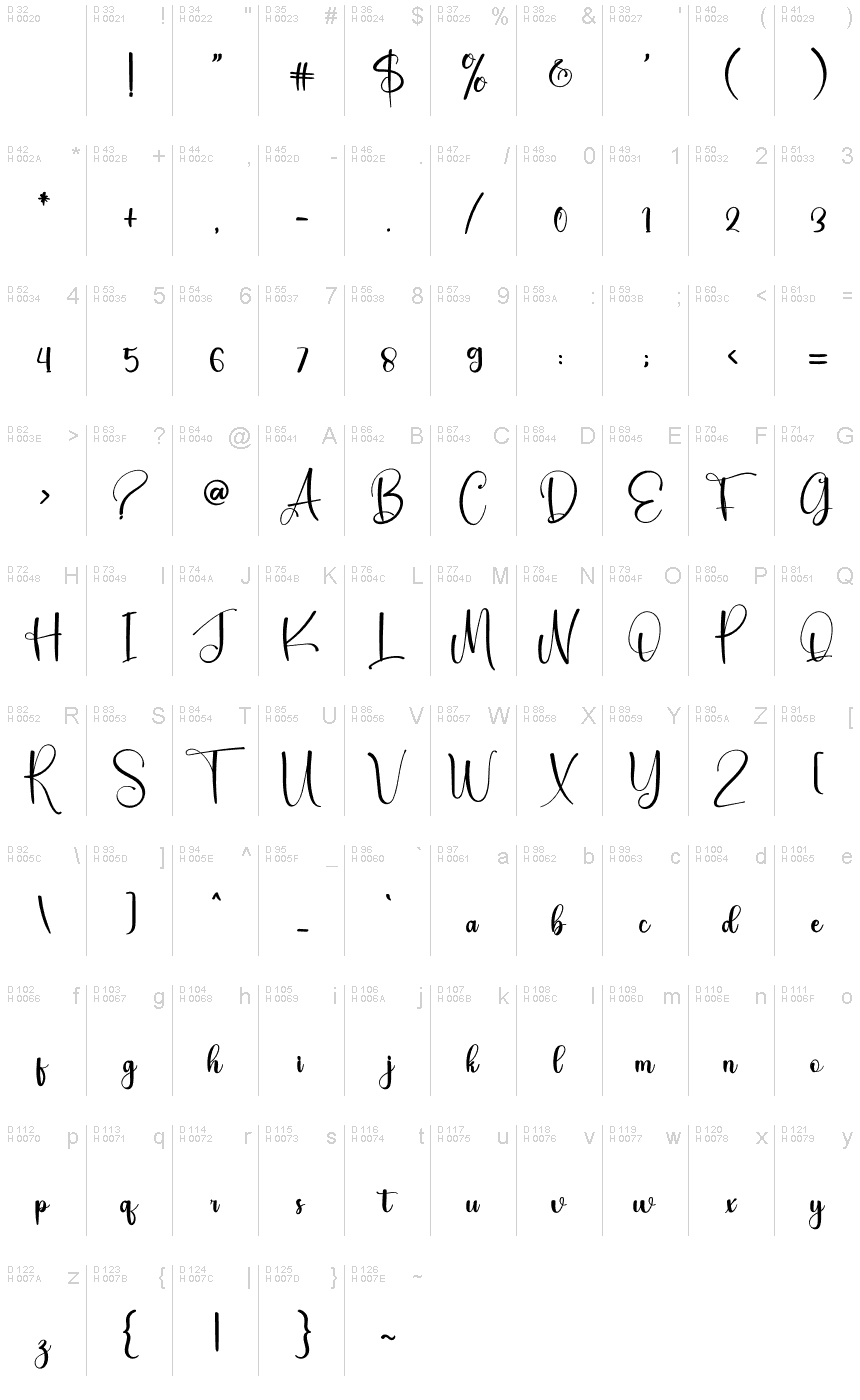
Juliette
Meet Juliette, a mesmerizing calligraphy font by Inermedia Studio. With its graceful and delicate strokes, Juliette adds elegance and sophistication to any project. Its semi-light weight enhances legibility while maintaining a touch of delicacy.
Perfect for wedding invitations, romantic poetry books, or trendy fashion magazines seeking a touch of timeless beauty. Juliette will transport your audience to a world of enchantment, making every word written an artistic masterpiece.
Embrace the allure of calligraphy with Juliette and let your creativity flow effortlessly.